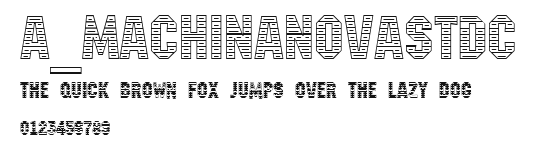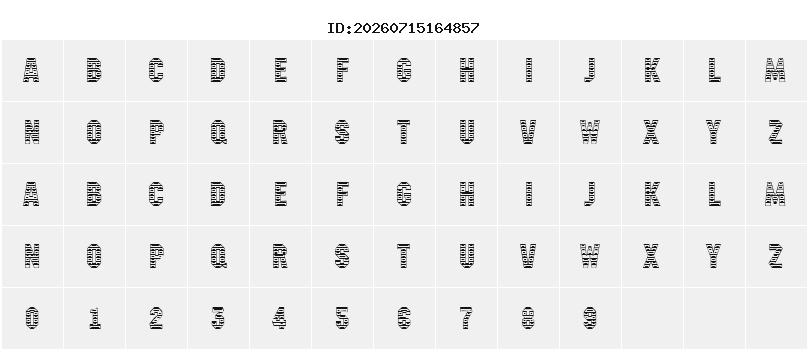
a_MachinaNovaStDc Preview
About a_MachinaNovaStDc.ttf
a_MachinaNovaStDc.ttf is a modern, elegant sans-serif font designed for ultimate readability and visual harmony. Perfect for branding, headlines, web design, and print materials.